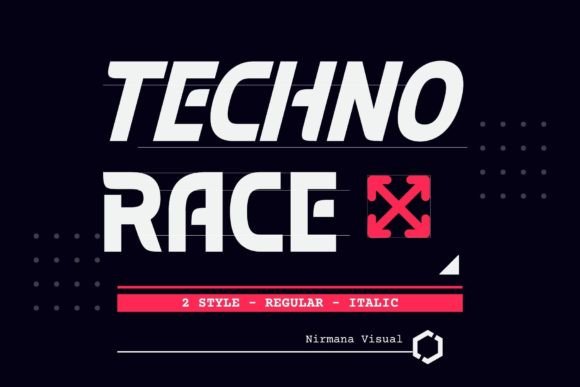
Prepare yourself for the starting line with Techno Race, the font that embodies speed and determination. Inspired by the thrill of the racetrack, this typeface is designed to propel your designs to victory.
Techno Race is a display font that exudes strength and sportiness. Its sleek lines and dynamic curves evoke the rush of adrenaline as you push the limits. Whether you're creating titles that demand attention, logos that leave a lasting impression, or typography that sets the pace, this font will elevate your creations to the next level.
With its versatility, Techno Race effortlessly adapts to a wide range of design needs. Imagine the possibilities:
- Titles that ignite passion and captivate your audience
- Logos that convey speed, power, and cutting-edge innovation
- Typography that adds a sporty touch to your brochures and magazines
- Clothing designs that radiate energy and style
- Packaging that makes your products stand out on the shelves
But Techno Race is more than just a collection of letters. It's a tool that empowers you to express your individuality and unleash your creativity. Whether you're a designer, a marketer, or simply someone who loves to make a statement, this font will ignite your imagination and propel your ideas forward.